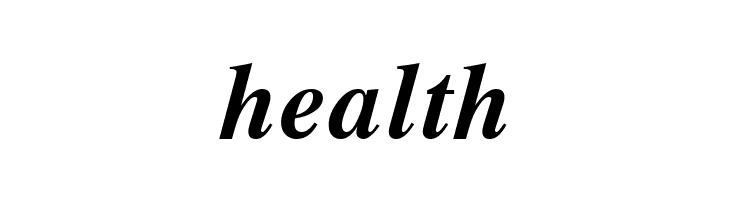
A bold, outlined collegiate-style font with strong, block-like characters.
A bold, outlined font with a collegiate, varsity style.
A dynamic italic font with sharp, angular strokes and elegant curves.
A bold, decorative slab serif font with unique cut-out details.
A casual, handwritten font with a smooth, flowing style.
A playful, handwritten font with smooth, flowing curves and a casual style.
A bold, italic script font with a fluid, handwritten style.
A smooth, flowing script font with an elegant, casual style.
A bold, slab serif font with a vintage Western aesthetic.
A bold, italic serif font with classic elegance and strong visibility.